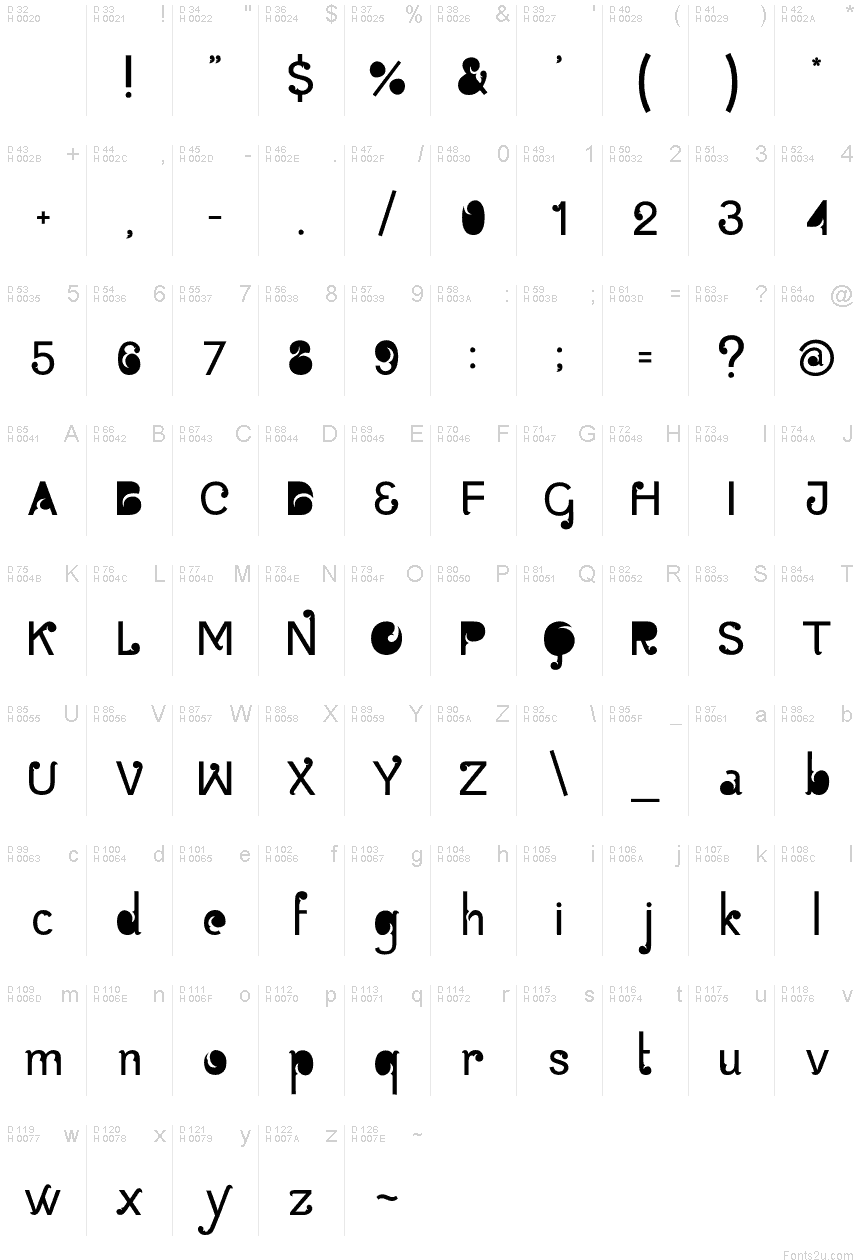
Batik Gangster is a free curly decorative display font with broad, dark letterforms cut through by sharp open notches and teardrop curls. Its uneven stroke widths and oversized rounded details give the alphabet a theatrical, slightly unruly silhouette.
Packaging is a natural setting for its dense shapes, especially on confectionery labels or fashion products. It also suits music posters and lively event graphics. The recurring droplets and curled cut-ins can echo illustrated smoke, liquid, or ornamental patterns.
Batik Gangster is a sans-serif font with decorations at the tips of the letters.
Batik Gangster